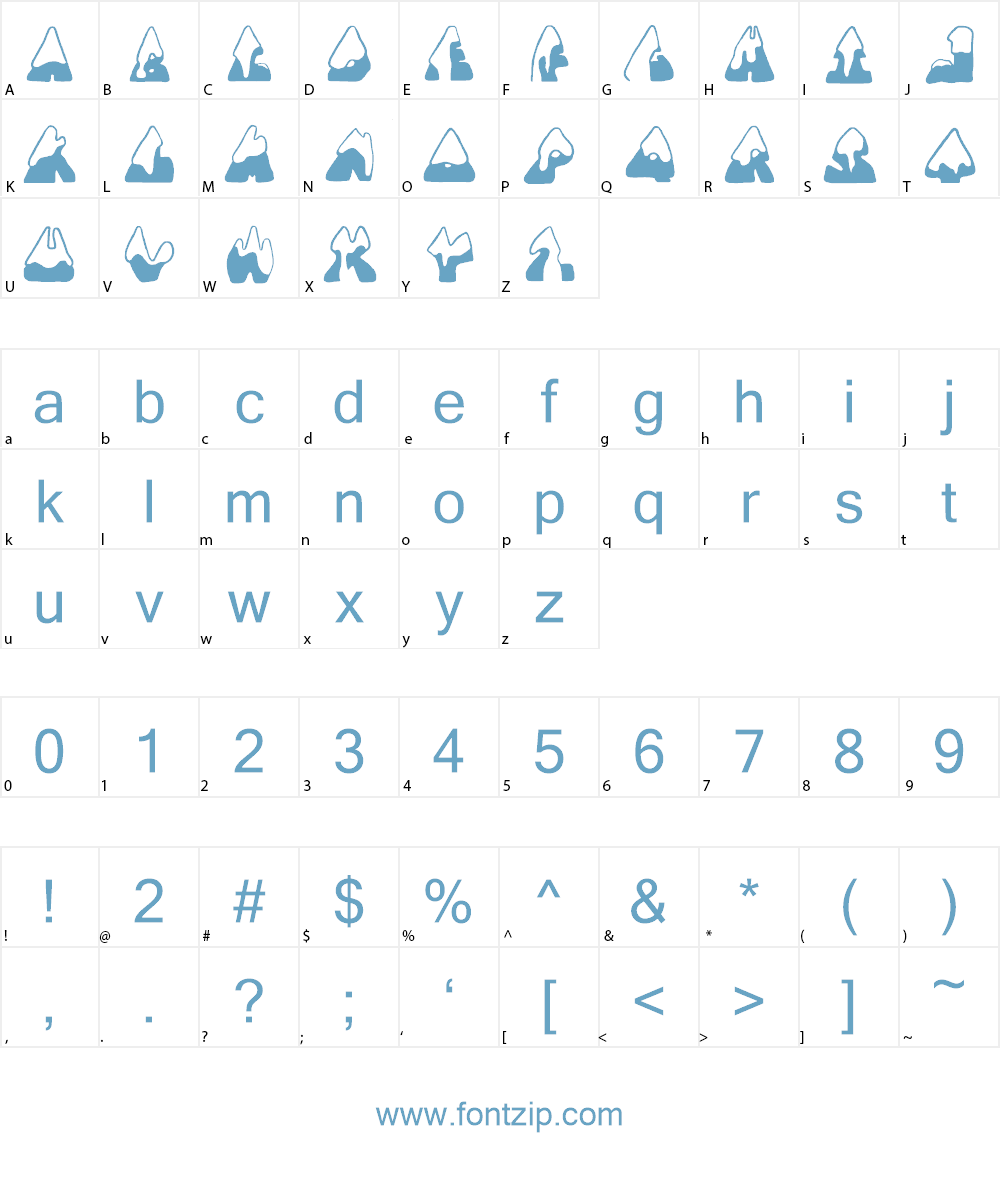
This font was inspired by the snowy mountains of the Himalayas. Wikiquote.org: The Himalayas, or Himalaya, (/ˌhɪməˈleɪ.ə/ or/hɪˈmɑːləjə/; Sanskrit: हिमालय, hima (snow) ālaya(dwelling),The name of the range derives from the [Tamizh Him means coldness and alayas means valley (refer southasia tamizh dictioanry) Sanskrit word literally meaning, "abode of the snow")